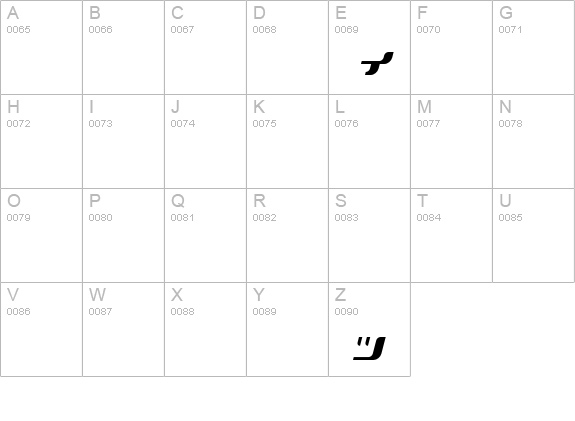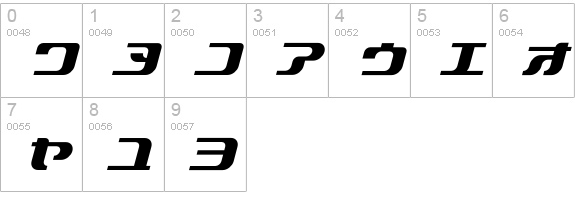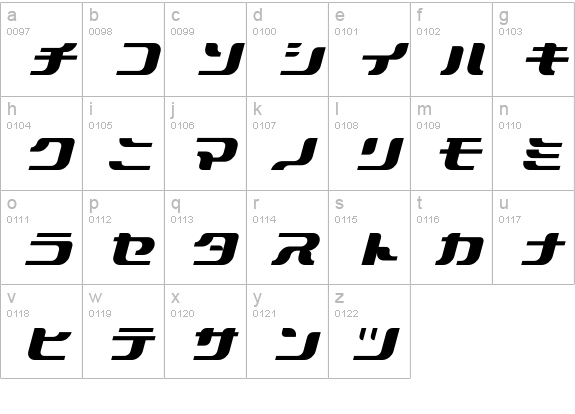
Takuan-BoldItalic Font Details
Introducing Takuan-BoldItalic, a visually captivating font that effortlessly merges boldness and elegance. This unique typeface exudes a sense of sophistication and modernity, making it the perfect choice for designers and creatives looking to add a touch of flair to their projects. Takuan-BoldItalic boasts a captivating balance between thick strokes and delicate curves, creating a stunning visual impact that is sure to captivate any audience. Its bold and italicized characters effortlessly command attention, making it an ideal choice for titles, headlines, and eye-catching designs that demand to be noticed. Not only does Takuan-BoldItalic impress with its aesthetic appeal, but it also offers incredible versatility. From branding and packaging designs to editorial layouts and website headers, this font adapts to any creative vision with ease, turning ordinary projects into extraordinary works of art. One of the most remarkable features of Takuan-BoldItalic is that it is freely available to download at FontsMarket.com. This means that designers and enthusiasts alike can access this stunning font without any cost, allowing for limitless creativity and exploration. Whether you are a professional designer or a hobbyist, Takuan-BoldItalic offers you the opportunity to elevate your designs without breaking the bank. Experience the power and beauty of Takuan-BoldItalic for yourself and unlock a world of design possibilities. Download this remarkable font today at FontsMarket.com and embark on a creative journey that is sure to leave a lasting impression.